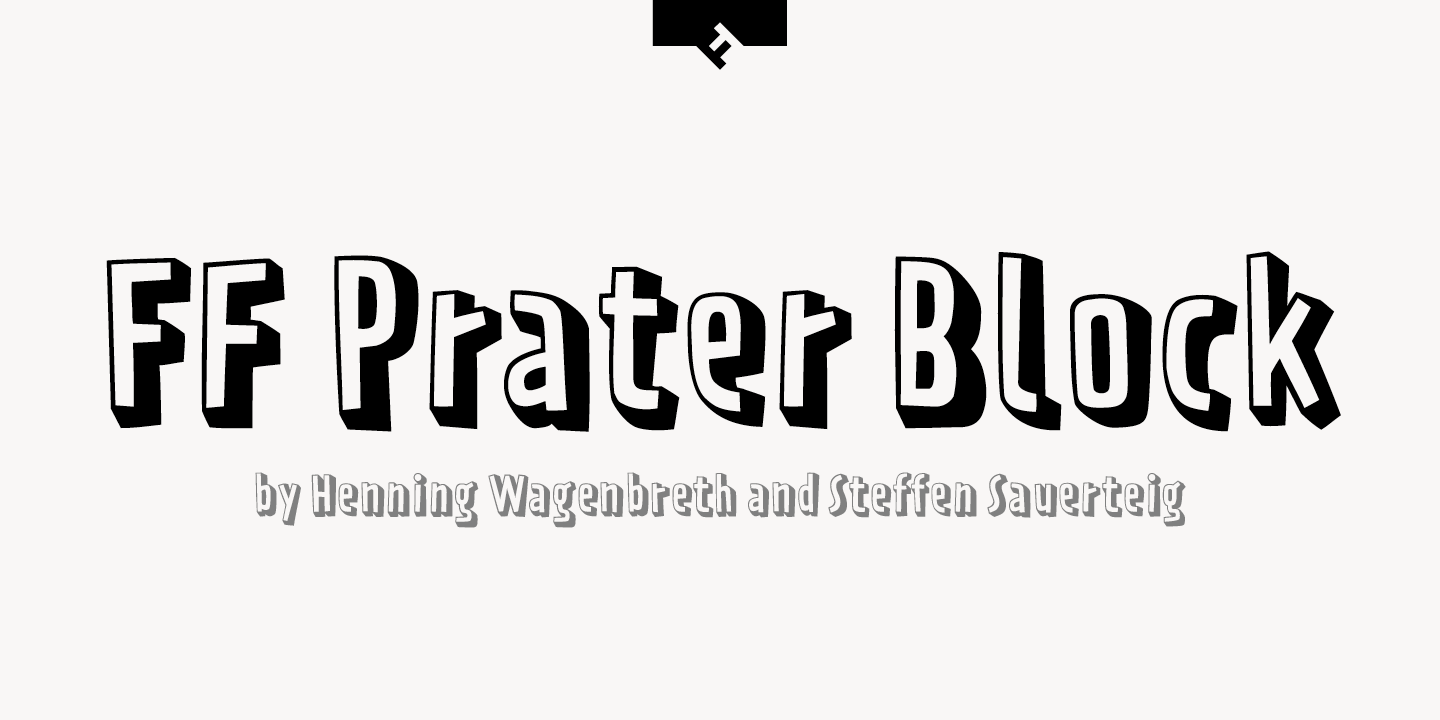
Make a bold impression with FF Prater Block Font Free Download, a striking display typeface that commands attention with its solid structure and vintage character. Designed for maximum impact, this font is perfect for posters, headlines, signage, album covers, and any project that needs a strong visual punch.
FF Prater Block Font draws inspiration from classic European design with a contemporary twist. Its chunky letterforms and tight spacing create a powerful rhythm across the page or screen, ideal for use in both print and digital design. Whether you’re crafting a theatrical flyer, a political poster, or a bold editorial spread, this font delivers punch and personality.